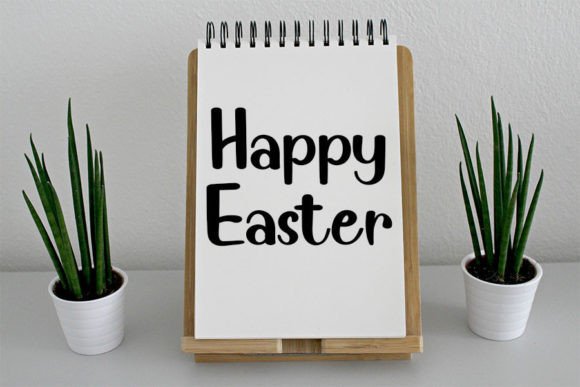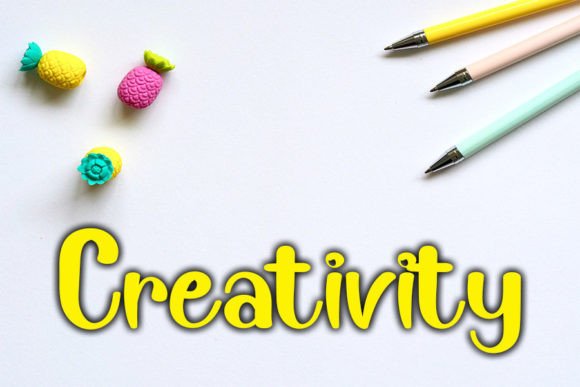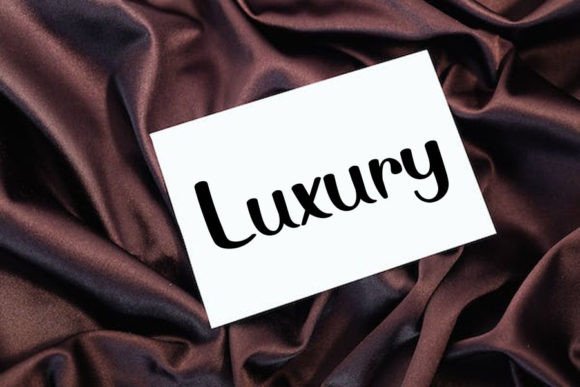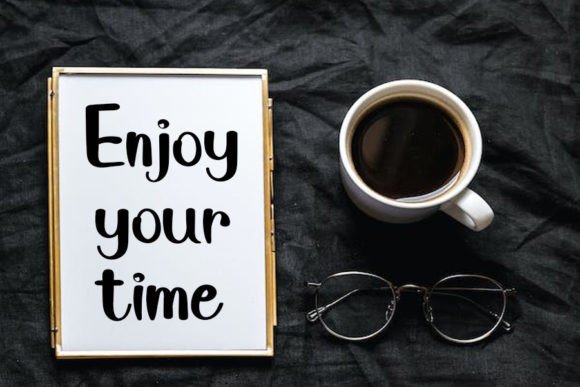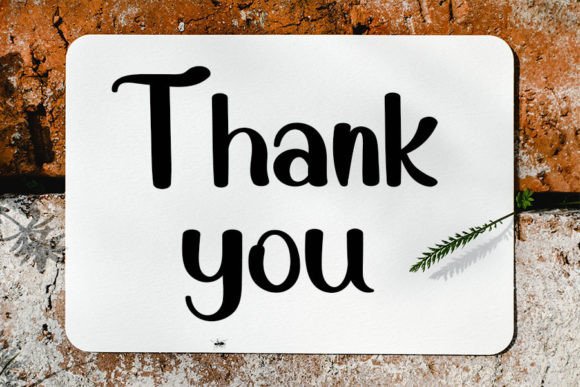
Bring Your Creative Ideas to Life with Better Handmade Font
Remember the moment when you stumbled upon a beautiful, handwritten quote in a coffee shop? It caught your eye, and you couldn’t help but stop and admire its charm. The perfect blend of cursive script and playful flourishes made you feel like you were reading a love letter from a friend. That’s the magic of handwritten fonts, and it’s exactly what Better Handmade Font is all about.
Better Handmade Font is a cute and casual handwritten font designed to make your creative projects stand out. Whether you’re a designer, artist, or simply a DIY enthusiast, this font is perfect for adding a personal touch to your work. With its incredibly friendly feel, it’s no wonder that Better Handmade Font is a favorite among designers who value unique and eye-catching typography.
Better Handmade Font Key Features
- Font Family: Better Handmade Font is a hand-drawn font family with a unique, handmade feel.
- Character Set: The font includes a comprehensive set of characters, including uppercase and lowercase letters, numbers, punctuation, and special characters.
- Unique Characteristics: Better Handmade Font features a distinctive, hand-drawn aesthetic with subtle imperfections and variations, giving it a truly unique look.
Better Handmade Font Review
I recently had the chance to try out the Better Handmade Font, and here’s my honest take on it.
- Unique Style**: This font has a distinct, hand-drawn feel that sets it apart from more traditional fonts.
- Expressive**: The Better Handmade Font is perfect for projects that need a bit of personality and whimsy.
- Wide Range of Sizes**: The font scales well, making it suitable for a variety of applications, from small text to large headings.
- Limited Legibility**: At smaller font sizes, some of the letters can become difficult to read, especially for those with visual impairments.
- No Variations**: There aren’t many font weights or styles available, which can limit its versatility.
Overall, I think the Better Handmade Font is a great choice for projects that need a touch of personality and uniqueness. However, it may not be the best fit for applications where legibility is a top priority. With a bit more development, I think this font could be even more effective.
Getting the Most Out of Better Handmade Font
To get the most out of Better Handmade Font, try the following:
- Use the font for titles and headings to add a touch of elegance.
- Pair the font with other handwritten fonts for a unique look.
Better Handmade Font is perfect for:
- Blog and social media graphics.
Alternatives to Better Handmade Font
Lato is a sans-serif font designed by Łukasz Dziedzic. It’s a modern and elegant font that works well for body text and headings. Lato is a great alternative to Better Handmade Font when you need a clean and simple font for your design.
Comparison: Lato is more minimalistic and sans-serif, whereas Better Handmade Font is a script font with a more decorative feel. Use Lato when you want a font that’s easy to read and doesn’t distract from the content.
Playfair Display is an elegant and luxurious script font designed by Claus Eggers Sørensen. It’s perfect for titles, headings, and other decorative text. Playfair Display is a great alternative to Better Handmade Font when you need a high-end and sophisticated font.
Comparison: Playfair Display is more ornate and luxurious, whereas Better Handmade Font has a more rustic and handmade feel. Use Playfair Display when you want a font that exudes luxury and sophistication.
Carolyna Pro is a modern and elegant script font designed by Hoftype. It’s a versatile font that works well for body text, headings, and titles. Carolyna Pro is a great alternative to Better Handmade Font when you need a font that’s both stylish and readable.
Q: What is the recommended font size and line height for optimal readability with the Better Handmade Font?
For optimal readability, we recommend using the Better Handmade Font at a minimum font size of 12pt (or 18px) and a line height of at least 1.5 times the font size. This will ensure that the text remains clear and legible, even at smaller sizes.